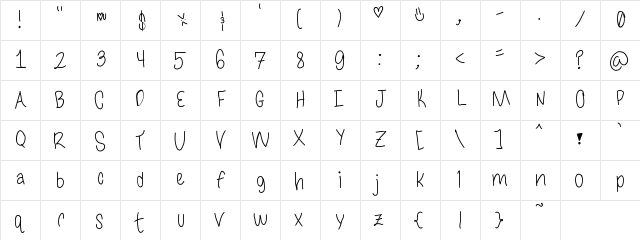
blurred watercolor Regular
Design Context for blurred watercolor Typeface
blurred watercolor takes a measured approach to typography — its balanced proportions and neutral character make it a reliable workhorse for both digital and print work.